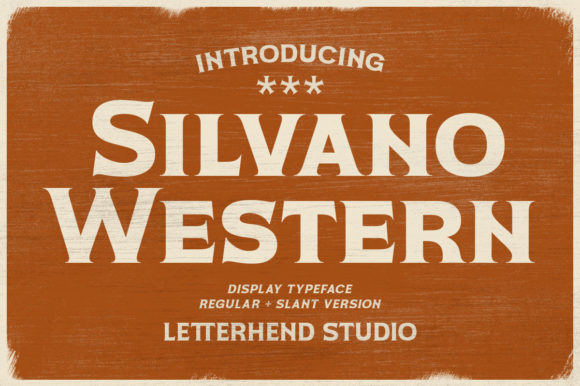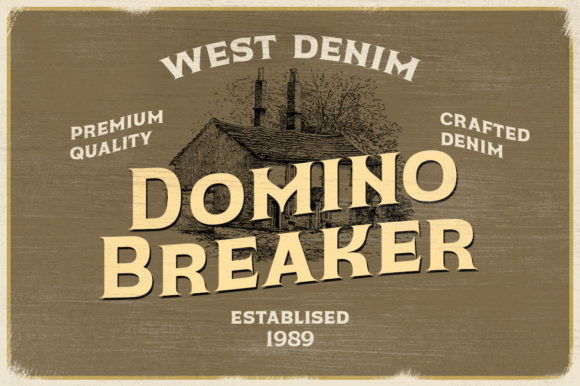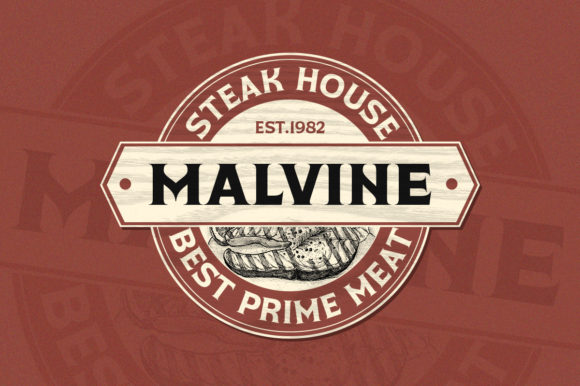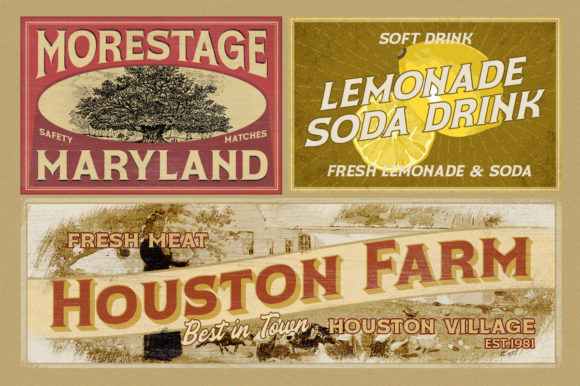
Silvano Western Font
About the Silvano Western Font
Elevate your designs with Silvano Western Font, a font that combines sophistication with readability. Silvano Western is a serif typeface suitable for designs that need a classical western touch. It works especially well with logos, invitations, labels, magazines, books, greeting/wedding cards, packaging, fashion, make-up, stationery, novels, labels, or any advertising purpose.
Silvano Western Font Usage Examples
Silvano Western Font Example